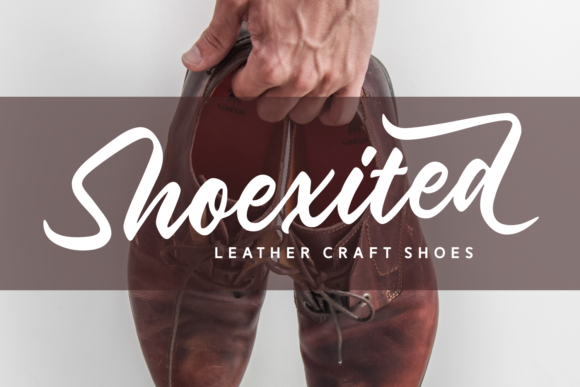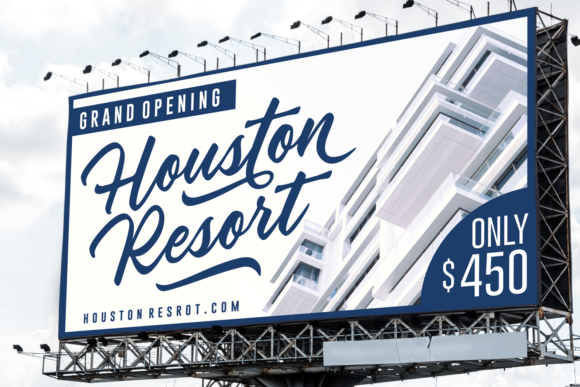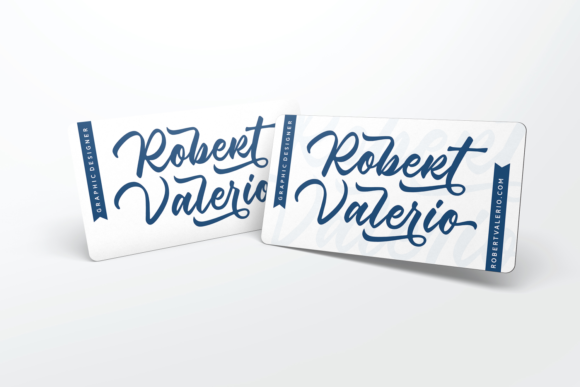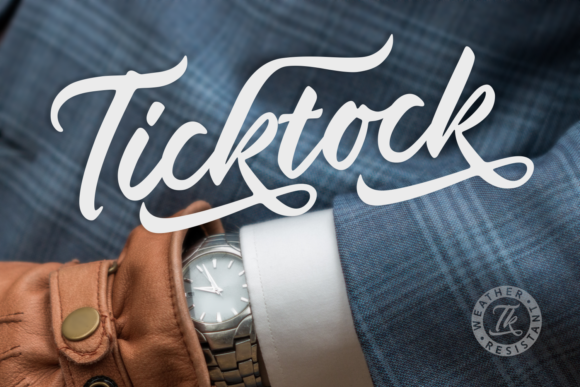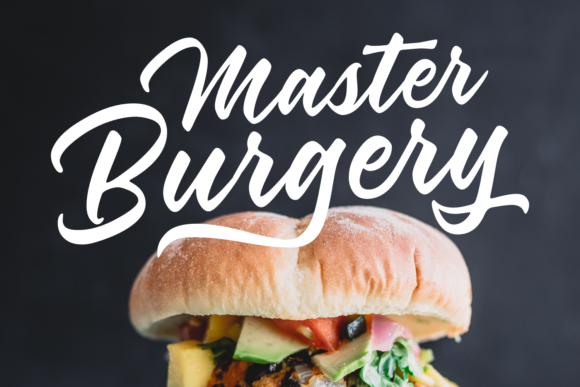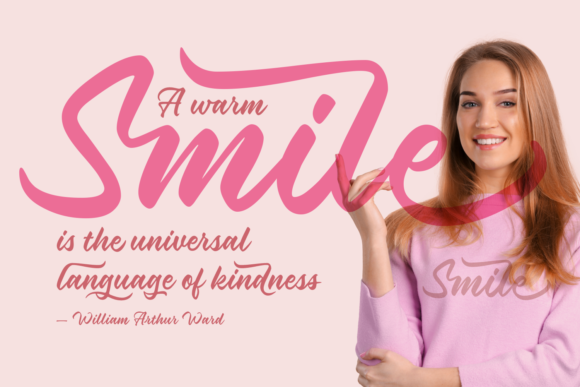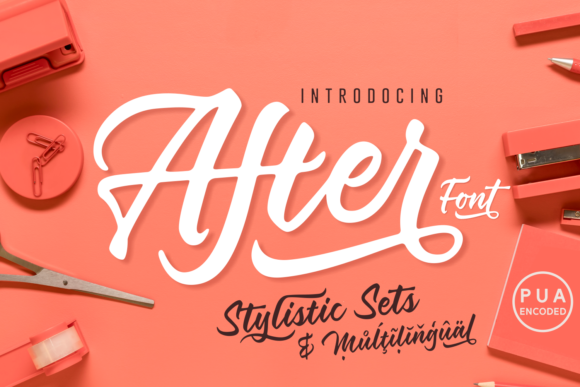
Introducing After Font: Elevate Your Designs with a Fun and Bold Handwritten Style
Are you tired of using the same old fonts in your design projects? Do you want to add a touch of personality and whimsy to your creations? Look no further than the After font, a fun and bold handwritten font that’s sure to make your designs stand out from the crowd. With its incredible feel and versatility, After is the perfect choice for designers and crafters looking to add a unique flair to their work.
The Story Behind After Font
The After font is a carefully crafted handwritten font that’s designed to bring a sense of playfulness and energy to your designs. Its bold and expressive lines make it perfect for use in a variety of projects, from bold headings and titles to creative quotes and phrases. Whether you’re working on a branding project, a social media graphic, or a craft project, After is the perfect choice for adding a personal touch.
Key Features of After Font
- Fun and Bold: The After font is designed to make a statement. Its bold lines and playful curves make it perfect for use in designs where you want to grab attention and make an impact.
- Handwritten Style: The After font has a beautifully handwritten feel that’s perfect for adding a personal touch to your designs. Its unique and expressive lines make it feel like it was written just for you.
- Versatile: The After font is incredibly versatile, making it perfect for use in a wide range of design projects. From bold headings and titles to creative quotes and phrases, After can be used in any design where you want to add a touch of personality.
Uses for After Font
The After font is perfect for use in a wide range of design projects, including:
- Branding: Use the After font to create bold and eye-catching logos, business cards, and marketing materials that will help your brand stand out from the crowd.
- Social Media Graphics: Add a touch of personality to your social media graphics with the After font. Use it to create bold and eye-catching posts, stories, and ads that will grab attention and drive engagement.
- Craft Projects: The After font is perfect for use in craft projects, such as handmade cards, scrapbooking, and DIY home decor. Add a personal touch to your projects with this fun and bold font.
- Signage: Use the After font to create eye-catching signs and posters that will grab attention and make a lasting impression.
Tips for Using After Font
Here are a few tips for getting the most out of the After font:
- Experiment with Different Sizes: The After font looks great in a variety of sizes, from small and delicate to large and bold. Experiment with different sizes to find the one that works best for your design.
- Pair it with Other Fonts: The After font pairs well with a variety of other fonts, including serif and sans serif fonts. Experiment with different pairings to find the one that works best for your design.
- Use it to Add Emphasis: The After font is perfect for adding emphasis to your designs. Use it to highlight important information or to draw attention to a specific element.